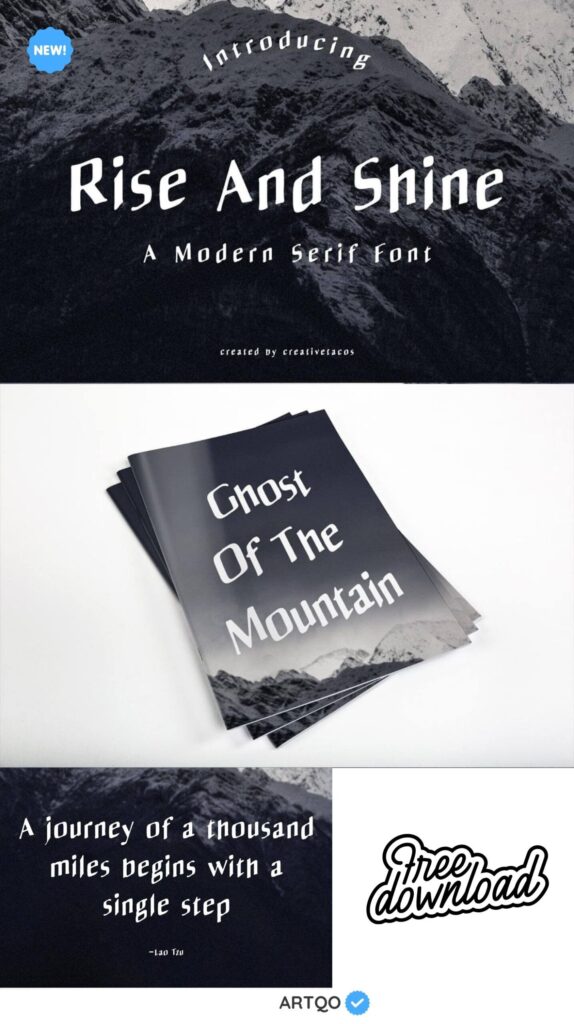
Rise And Shine Serif Font
Rise And Shine Serif Font is a wavy, modern and classy look font made for you to use in your upcoming projects. It contains uppercase, lowercase and number.
Rise And Shine font looks very awesome for wedding, feminine branding, social media, card, logos, web, branding, stationery, advertisements, product packaging, label, photography, watermark, special events, handmade notes, or just adding a professional touch to any projects!